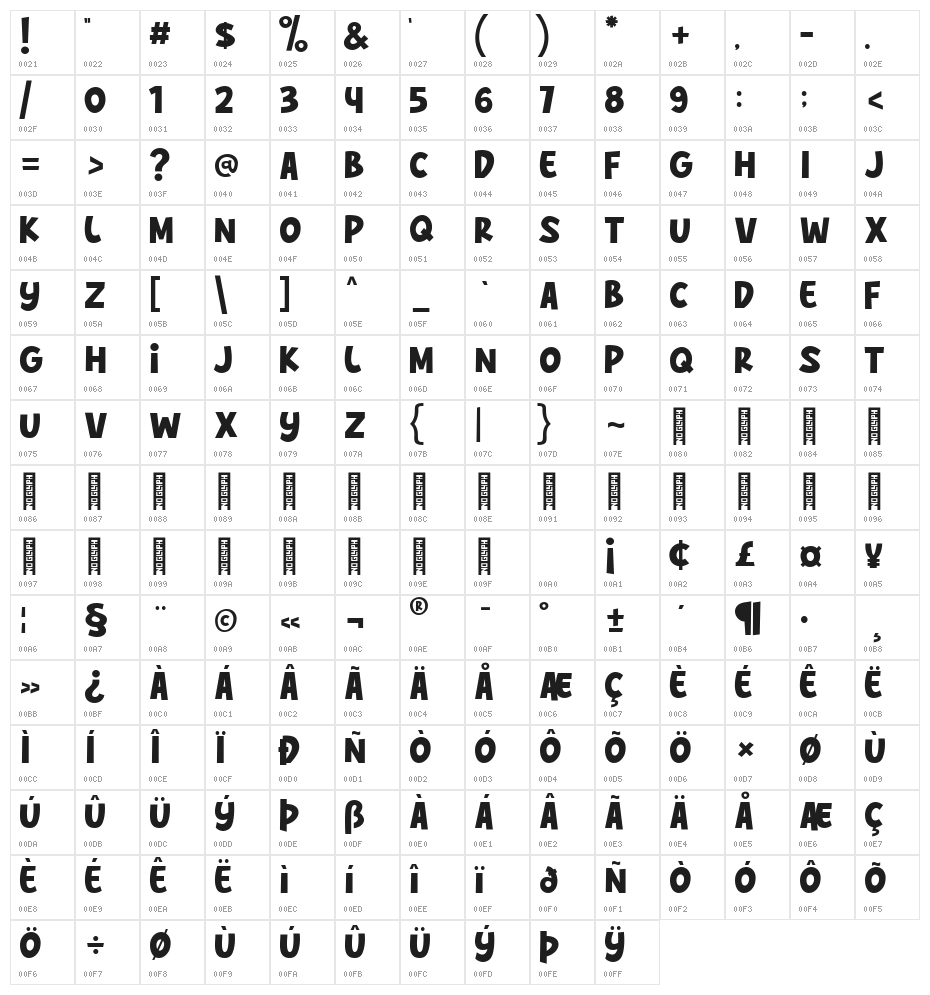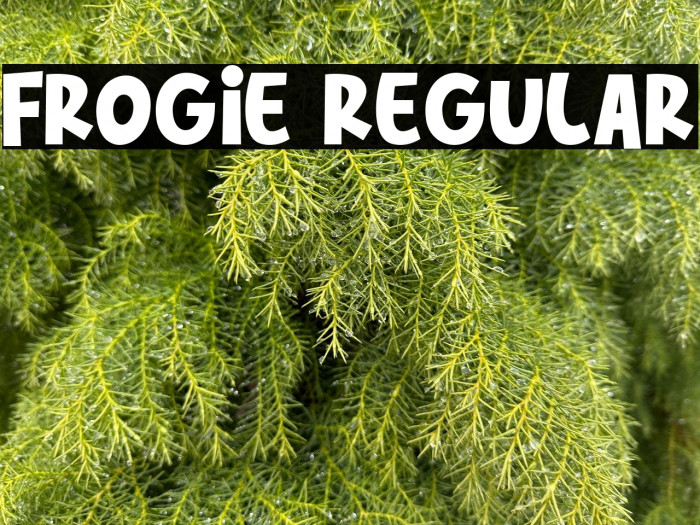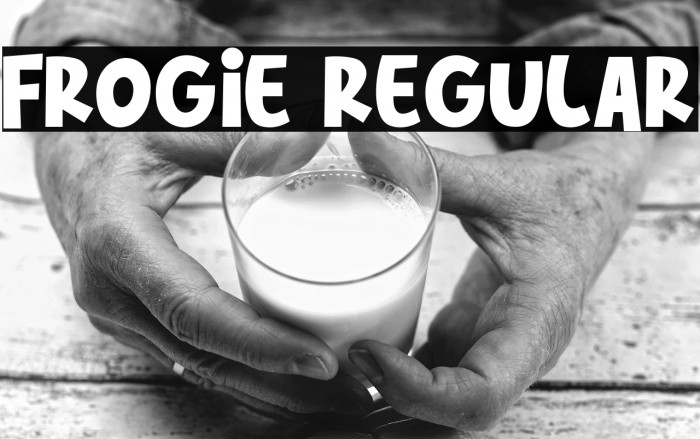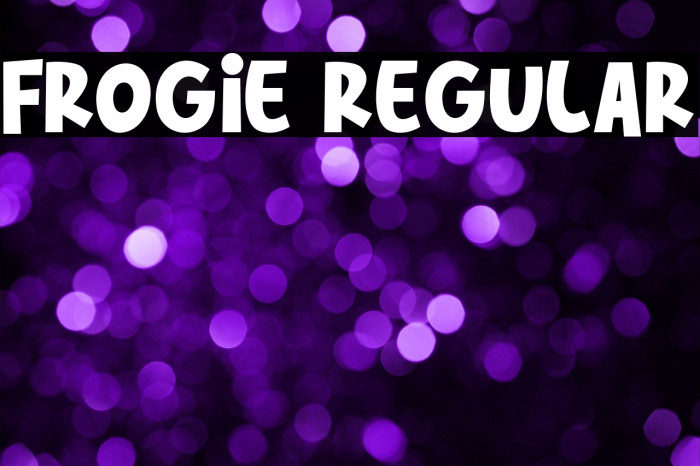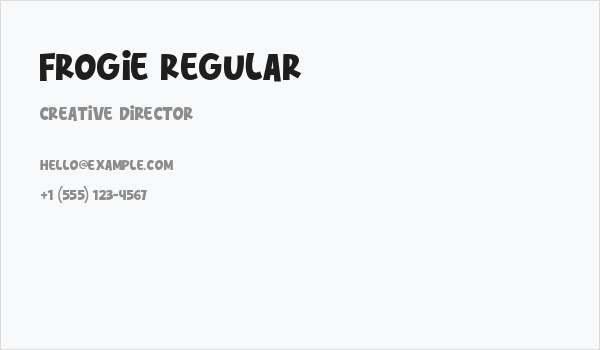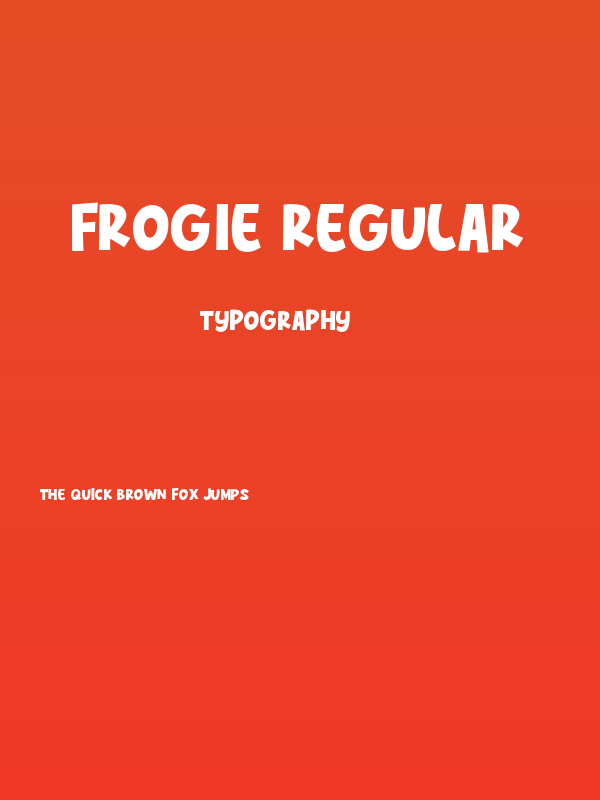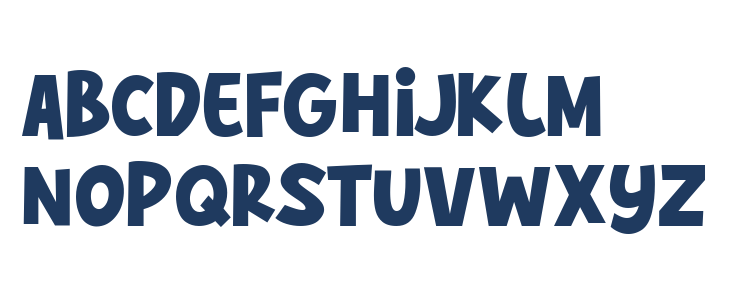
Frogie Regular Font
Frogie Regular Description
This font features bold, playful characters with a slightly whimsical touch, making it ideal for creative and fun projects. The uppercase and lowercase letters are well-balanced, with a consistent stroke width that adds to its bold appearance. The numbers and special characters maintain the same playful style, ensuring a cohesive look across all text elements. The font's design is both eye-catching and versatile, suitable for a variety of uses where a lively and engaging typeface is desired.
| Proposed Projects | Ideal for children's books, playful branding, posters, and event invitations. |